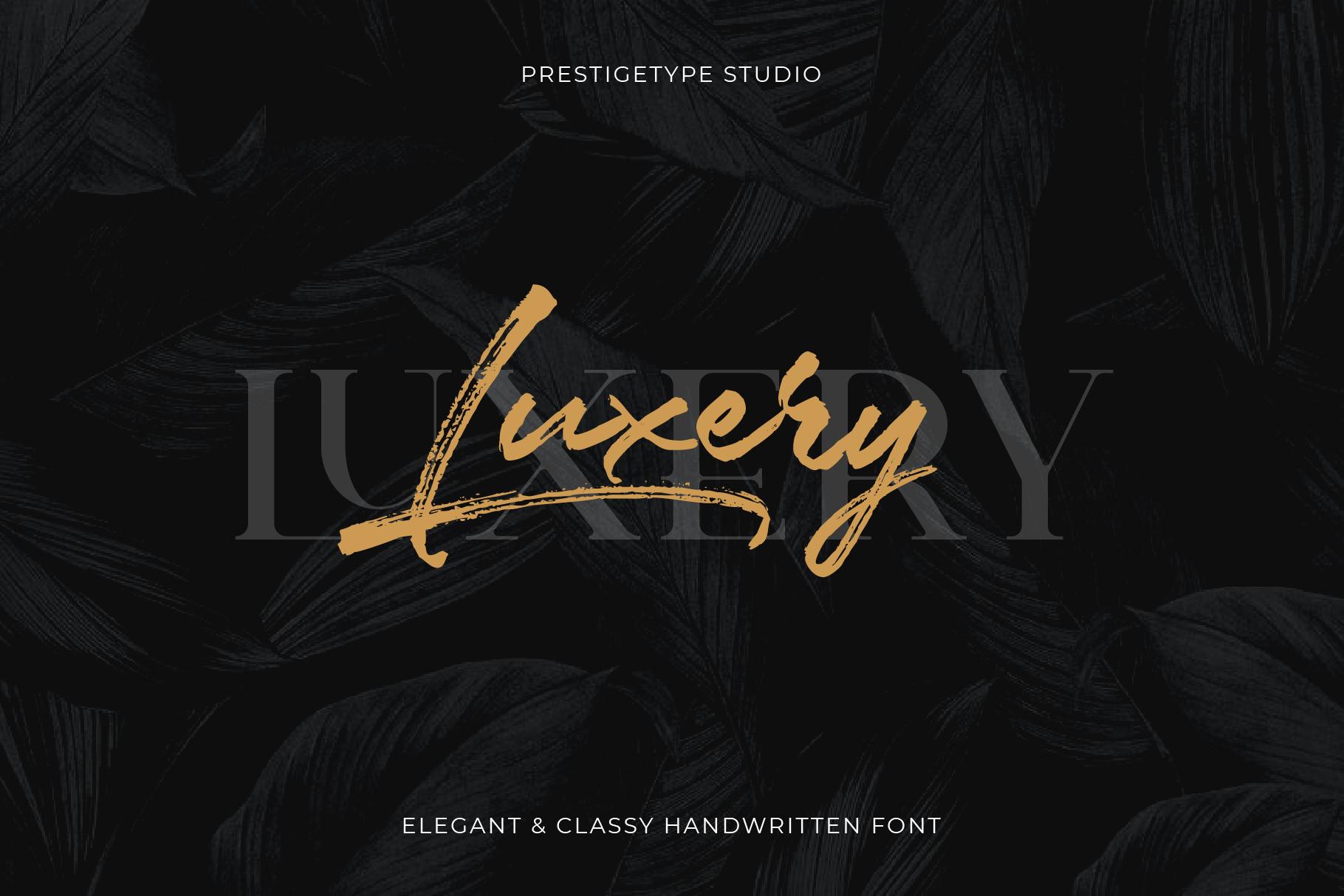
Luxery Classy Handwritten Font
Being authentic is the key to create a long-lasting brand identity. With authenticity, a brand can spread the trust of its value and bring inspiration to others. From that fact, we moved to create a font for a brand visual identity that has an authentic personality, introducing: Luxery Font, A classy handwritten font with authenticated character. With natural strokes and a stylish signature style, Luxery is perfect specifically for brand visual identities such as logos, headlines, business cards, titles, labels, fashion industry, social media, product packaging, advertising purposes, or as a stylish text overlay to any background image. This font has been made carefully to make sure it's premium quality.